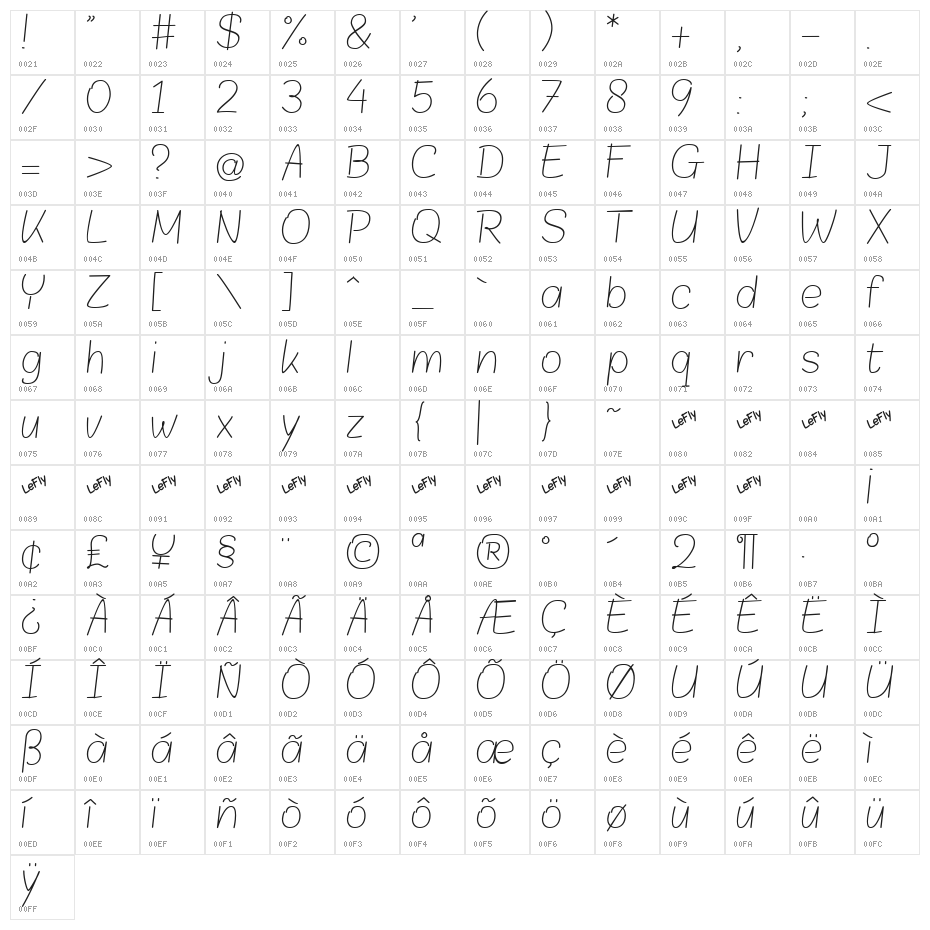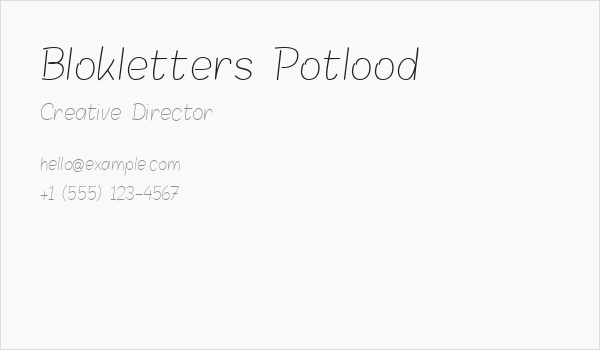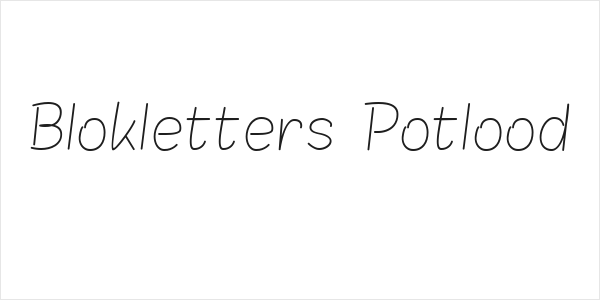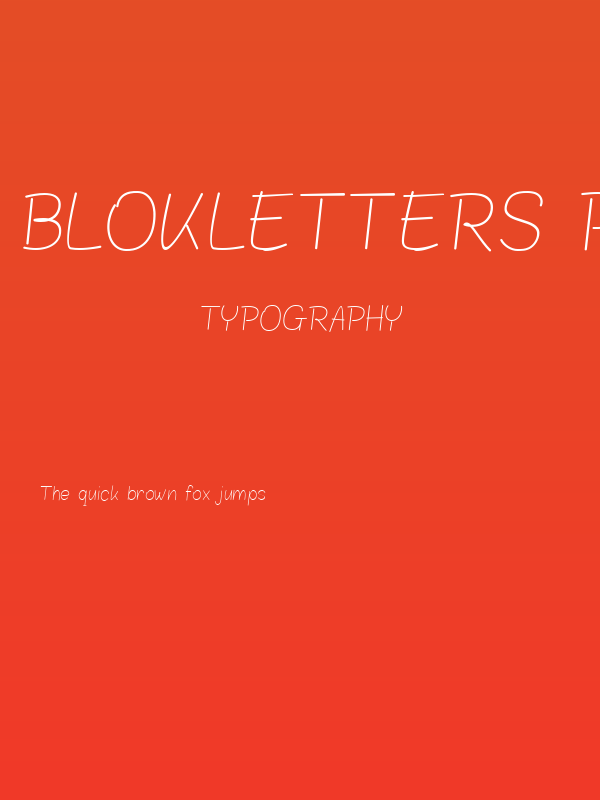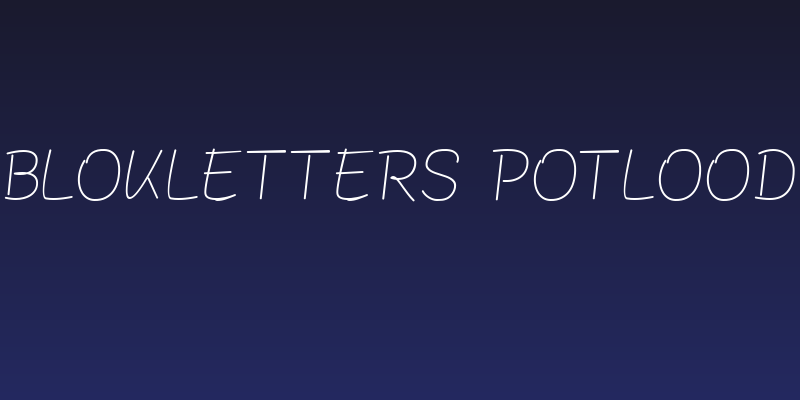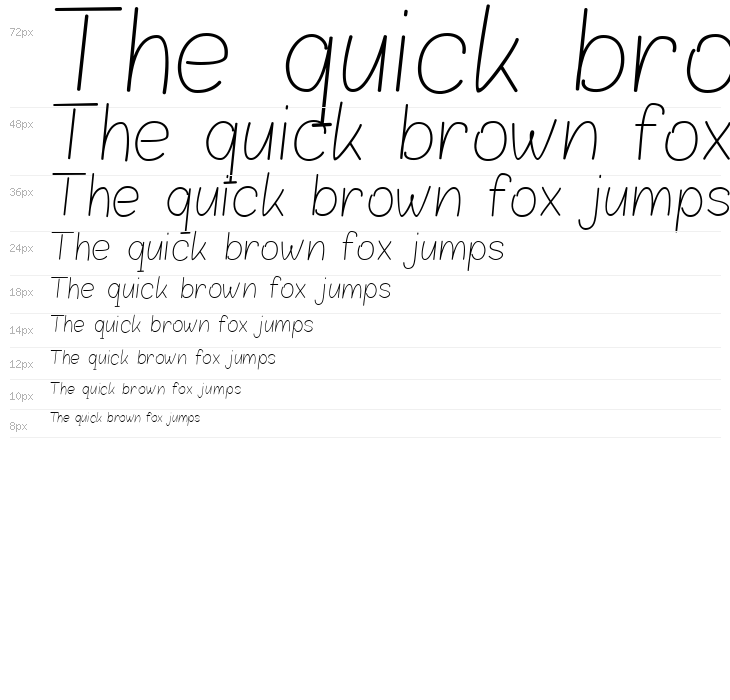
Blokletters Potlood Font
Blokletters Potlood Description
This font features a clean, handwritten style that mimics the look of pencil writing. The letters are slightly slanted, giving a casual and approachable feel. Each character is crafted with a consistent stroke width, maintaining a uniform appearance throughout. The uppercase and lowercase letters are well-proportioned, with a slight variation in height that adds to the handwritten aesthetic. The numerals are clear and easy to read, while the special characters are distinct and well-integrated into the overall design. This font is versatile and can be used in various contexts where a personal touch is desired.
| Proposed Projects | Ideal for personal notes, informal invitations, educational materials, and creative projects that require a handwritten touch. |